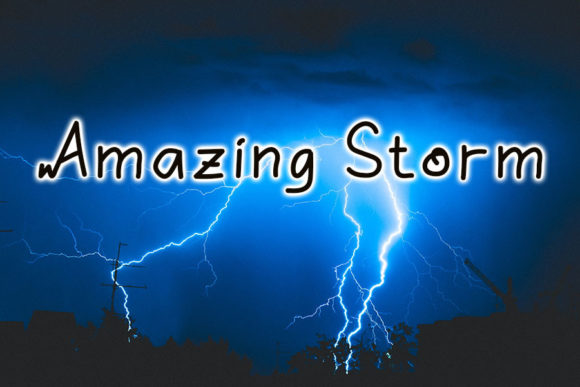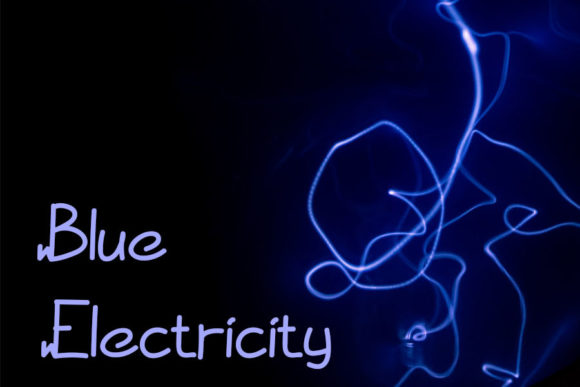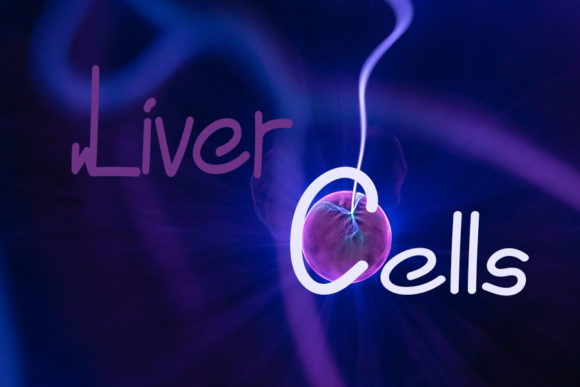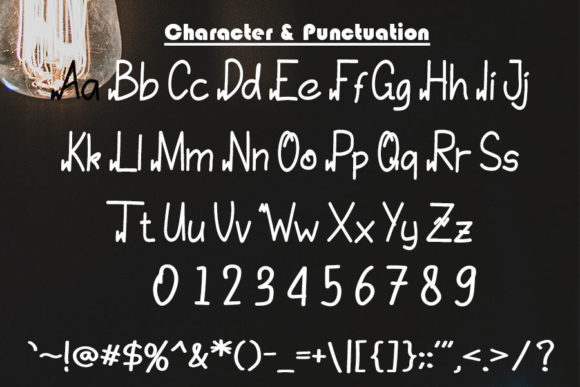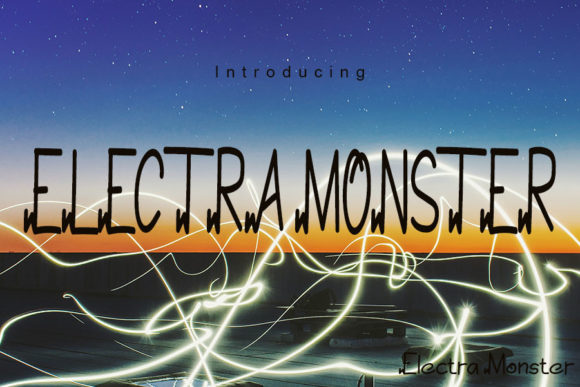
Electramonster Font: Unleash Your Creativity with this Unique Display Font
Are you tired of using the same old fonts for your designs? Look no further! Electramonster Font is here to take your creative projects to the next level. This cool and unique looking display font is perfect for designers and crafters who want to add a touch of personality to their work. In this article, we’ll dive into the features and benefits of Electramonster Font, and explore its endless possibilities.
What is Electramonster Font?
Electramonster Font is a display font designed to make a statement. Its unique and cool design makes it perfect for posters, flyers, prints, and any other creative project that requires a bold and eye-catching font. The font’s distinctive style is sure to grab attention and leave a lasting impression.
Key Features of Electramonster Font
- Unique Design: Electramonster Font boasts a one-of-a-kind design that’s sure to set your work apart from the rest.
- Display Font: This font is specifically designed for display purposes, making it perfect for headlines, titles, and other prominent text elements.
- Cool and Edgy: Electramonster Font has a cool and edgy vibe that’s perfect for designers and crafters who want to add a touch of personality to their work.
- High-Quality: The font is designed with high-quality and crisp lines, ensuring that it looks stunning in any size or resolution.
Benefits of Using Electramonster Font
So, why should you use Electramonster Font for your designs? Here are just a few benefits:
- Add Personality to Your Work: Electramonster Font allows you to add a unique touch to your designs, setting them apart from the rest.
- Grab Attention: The font’s bold and eye-catching design is sure to grab attention and draw the viewer in.
- Versatile: Electramonster Font can be used for a wide range of creative projects, from posters and flyers to prints and more.
Endless Possibilities with Electramonster Font
So, what can you create with Electramonster Font? The possibilities are endless! Here are a few ideas to get you started:
- Posters and Flyers: Use Electramonster Font to create eye-catching posters and flyers that grab attention and leave a lasting impression.
- Print Designs: Add a touch of personality to your print designs, such as brochures, business cards, and more.
- Social Media Graphics: Use Electramonster Font to create bold and eye-catching social media graphics that stand out from the crowd.
- Logos and Branding: Electramonster Font can even be used for logos and branding, adding a unique touch to your company’s identity.
In conclusion, Electramonster Font is a unique and cool display font that’s perfect for designers and crafters who want to add a touch of personality to their work. With its bold and eye-catching design, high-quality lines, and endless possibilities, Electramonster Font is sure to take your creative projects to the next level. So why wait? Download Electramonster Font today and unleash your creativity!